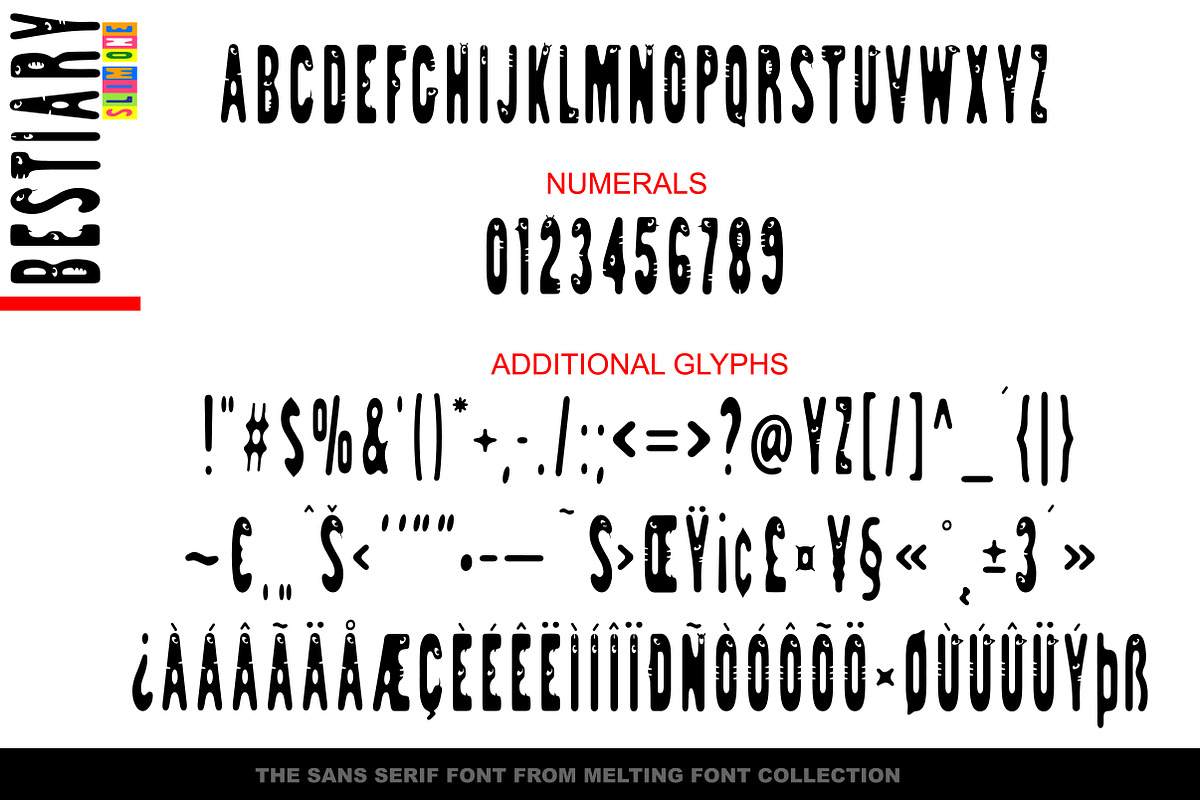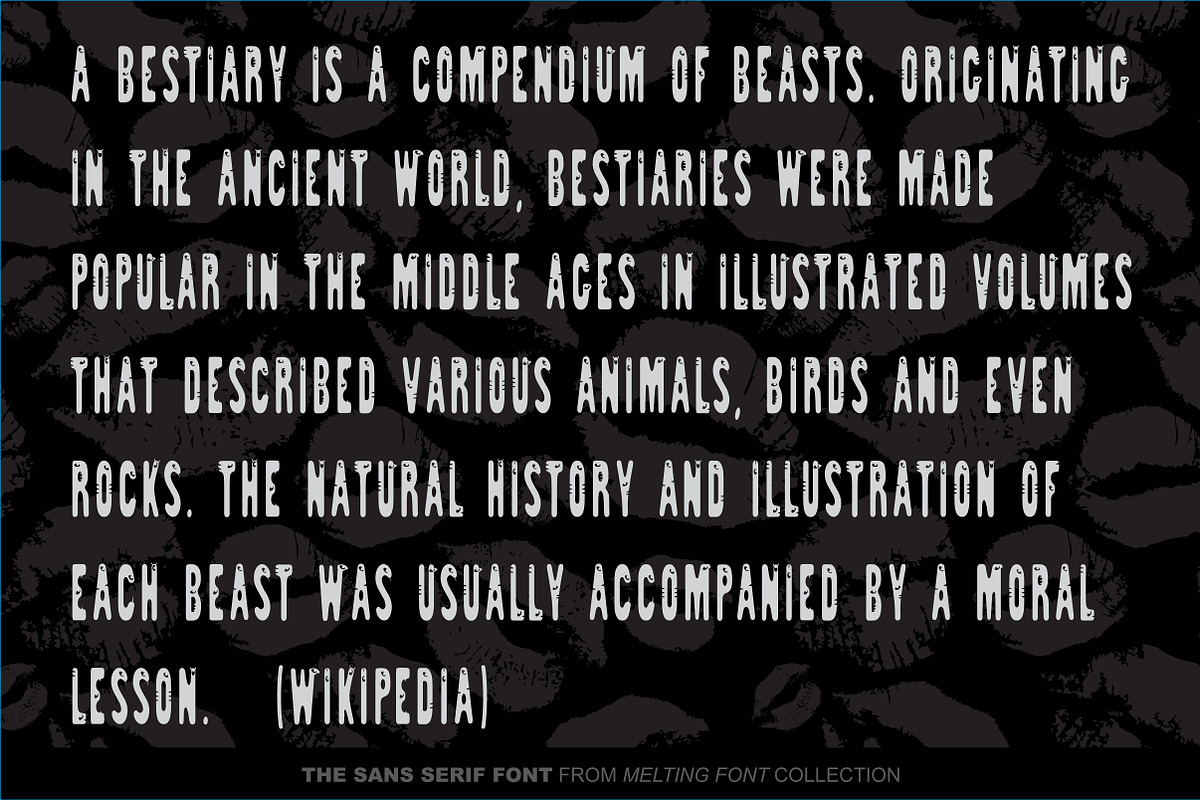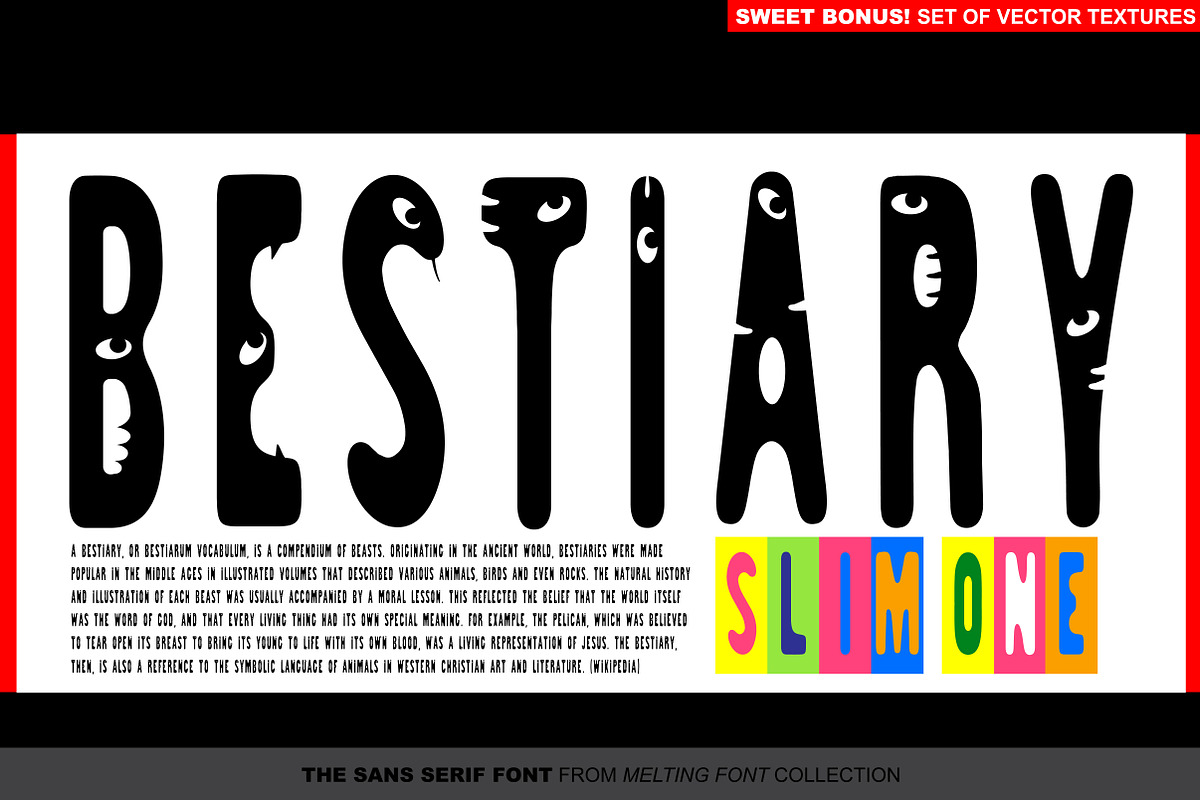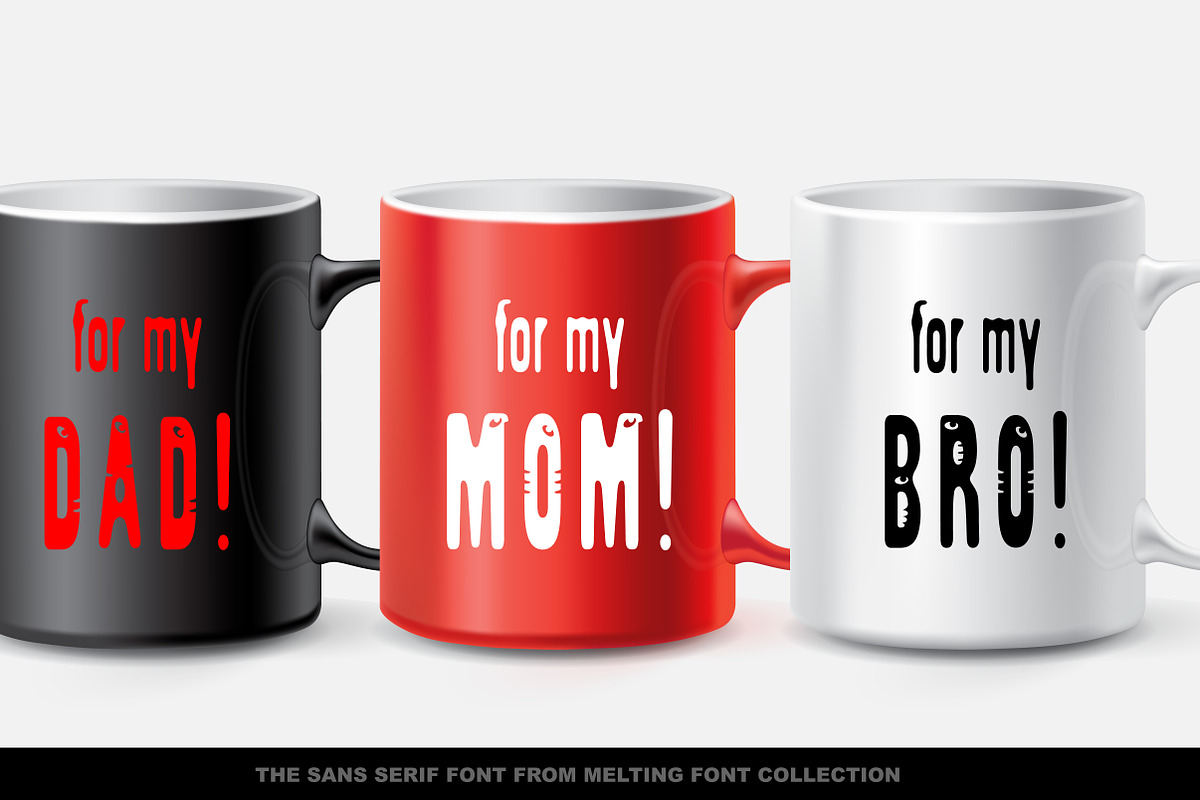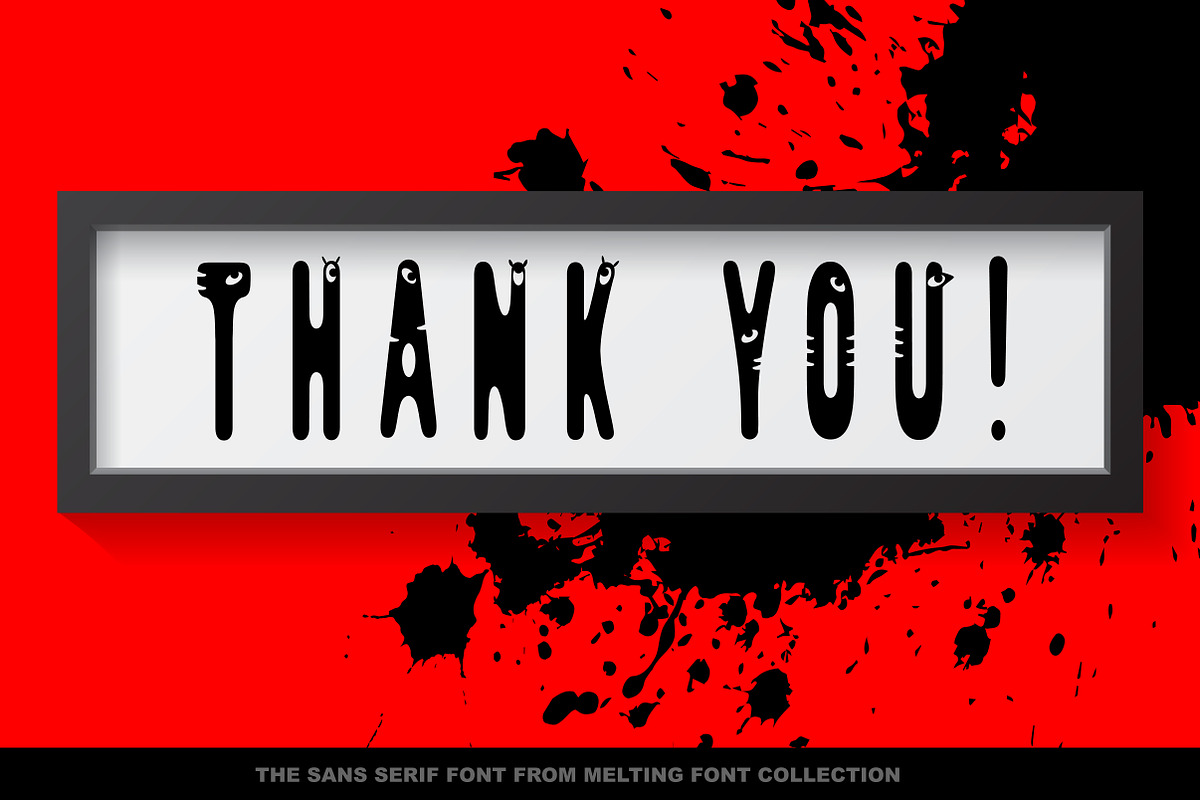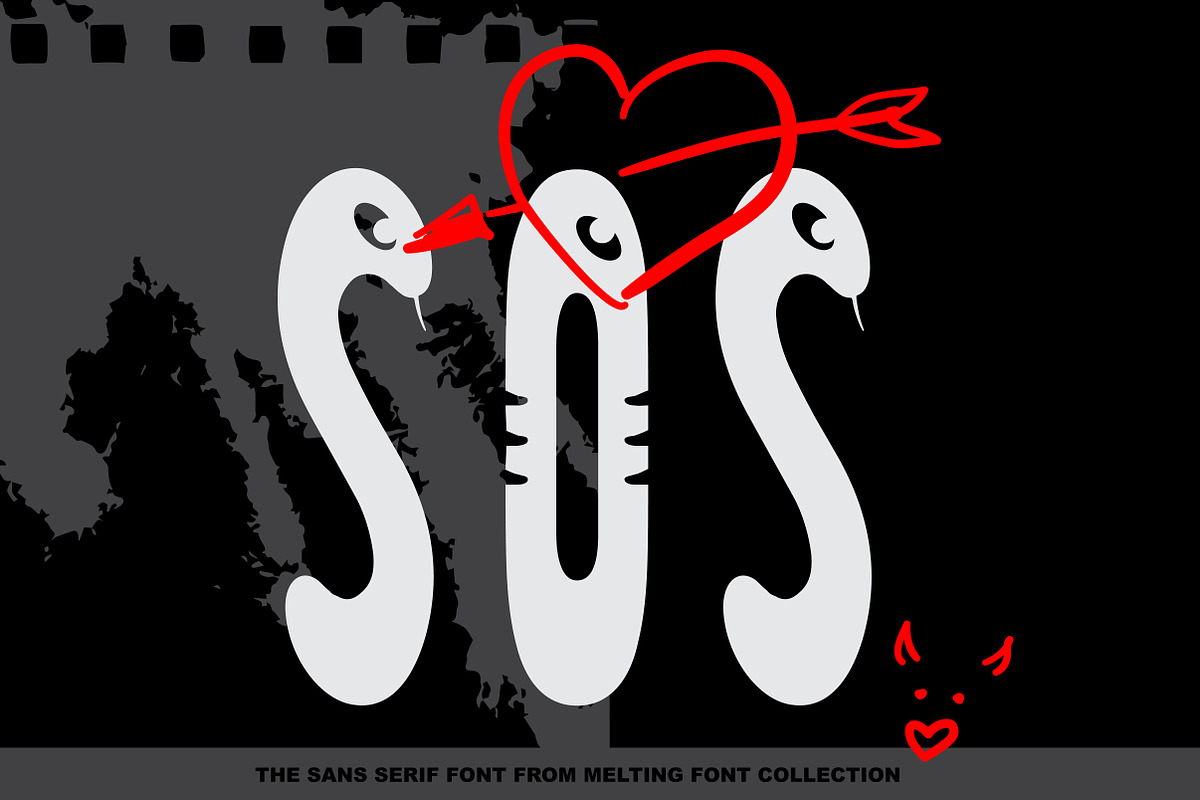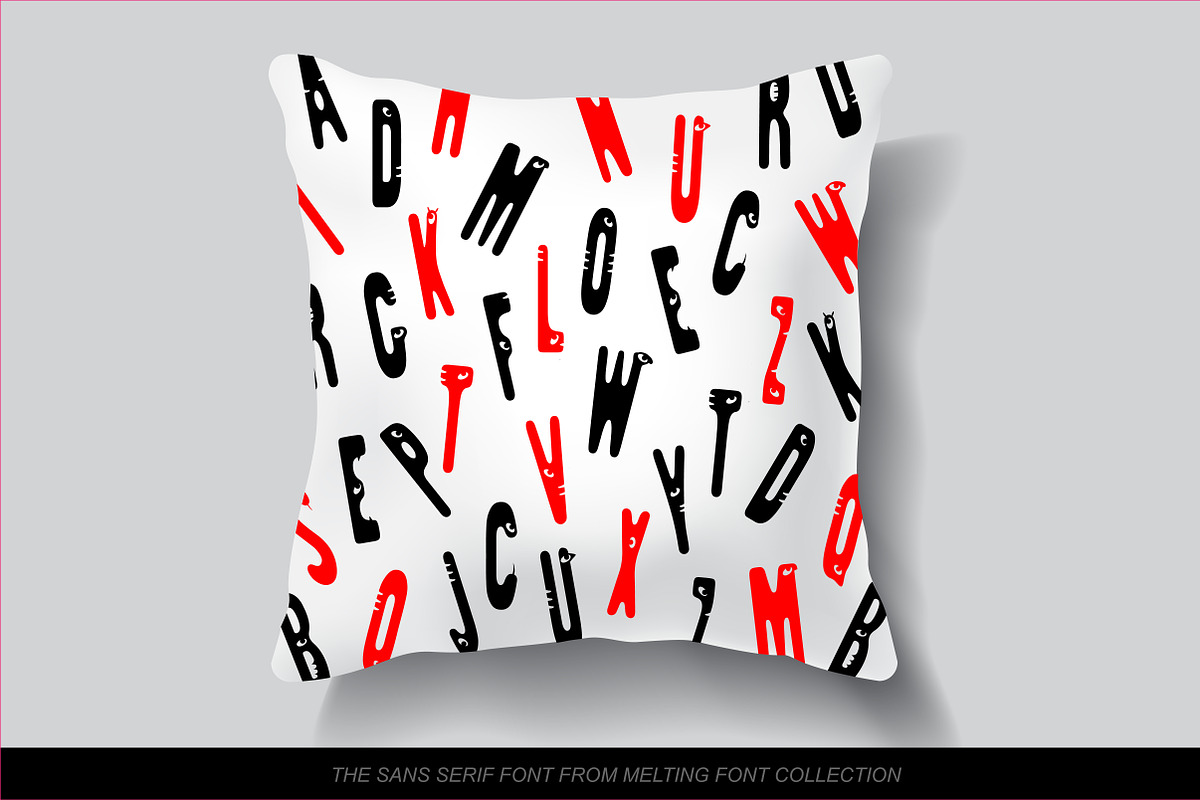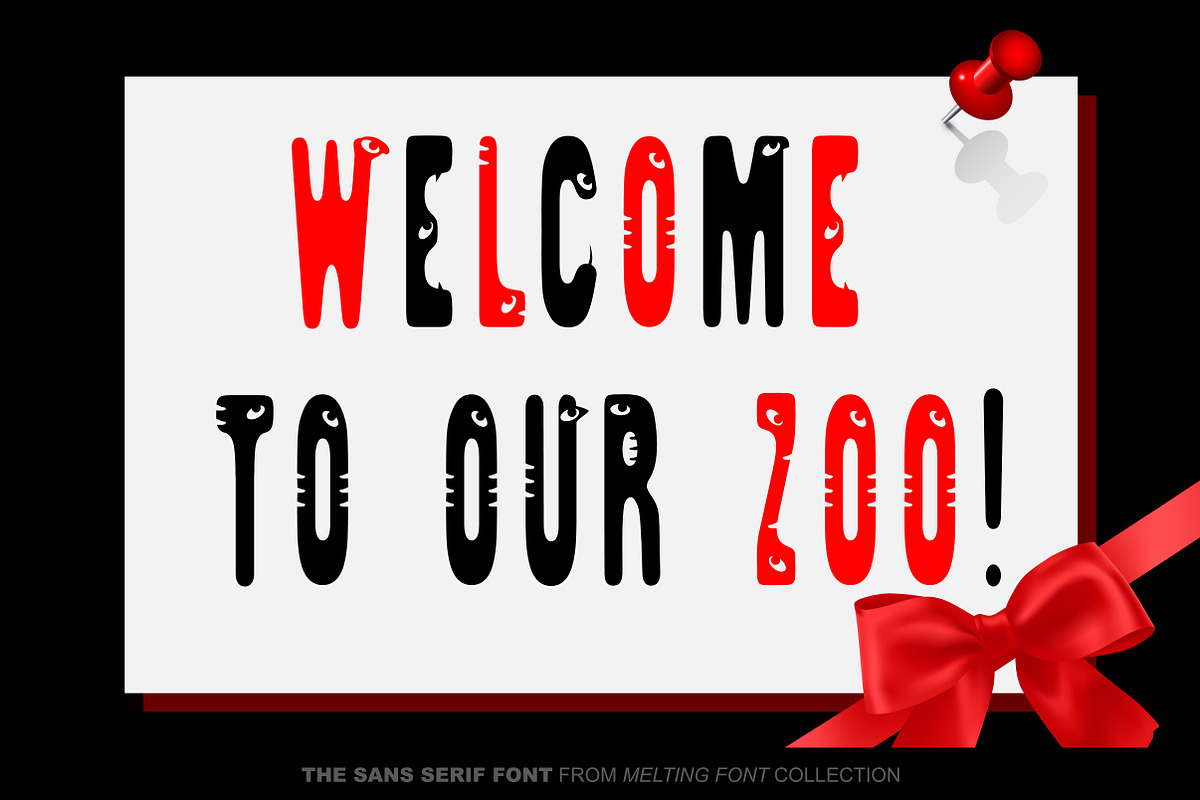
SlimOne Bestiary Decorative Font
SlimOne Bestiary Decorative Font by GalaStudio is a font selected for branding, posters, packaging, typography.
- Multilingual support included for the languages based on Latin alphabet.
Why SlimOne Bestiary Decorative Font is worth a look
SlimOne Bestiary Decorative Font by GalaStudio fits naturally into Branding, posters, packaging, typography.